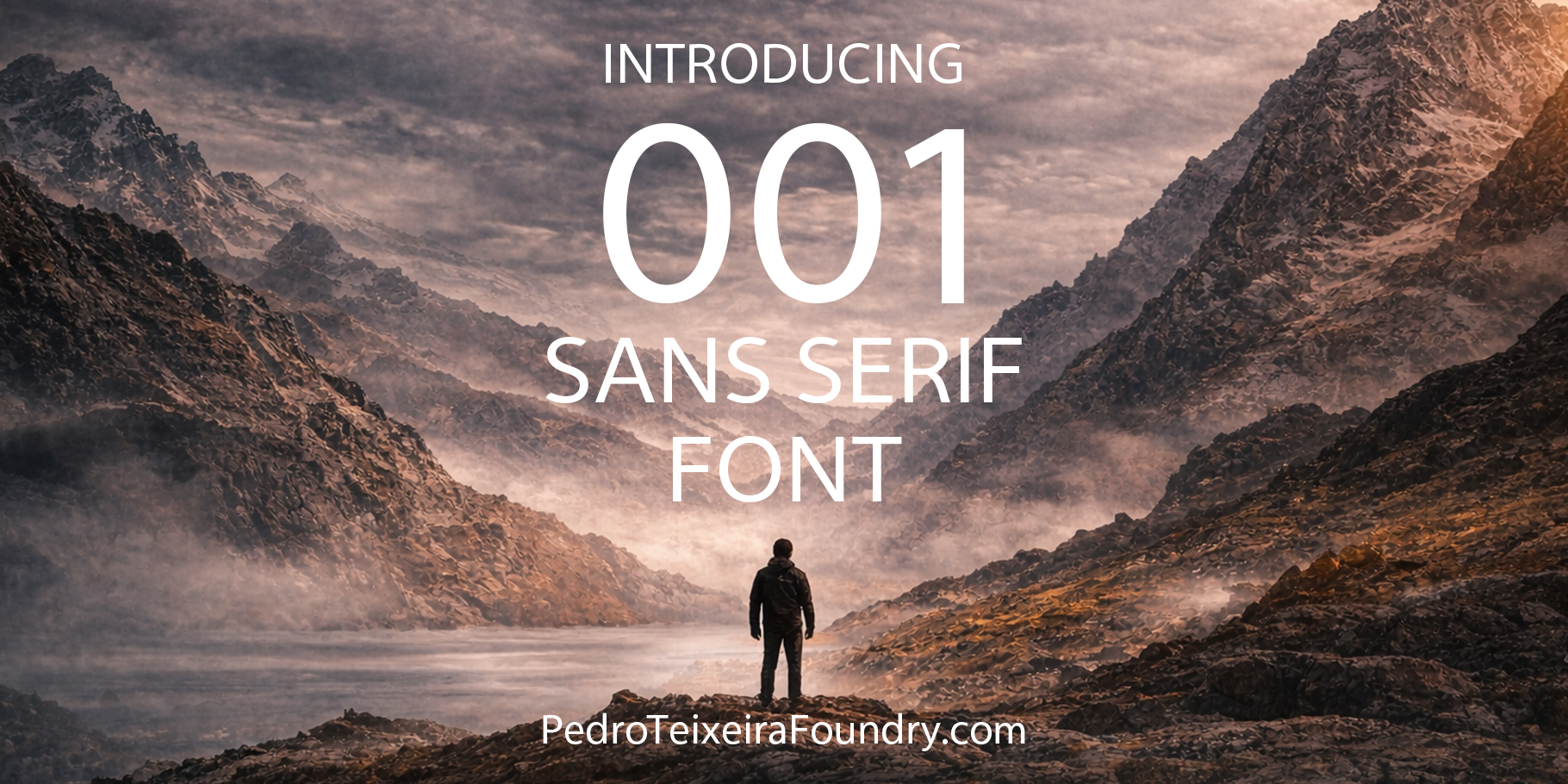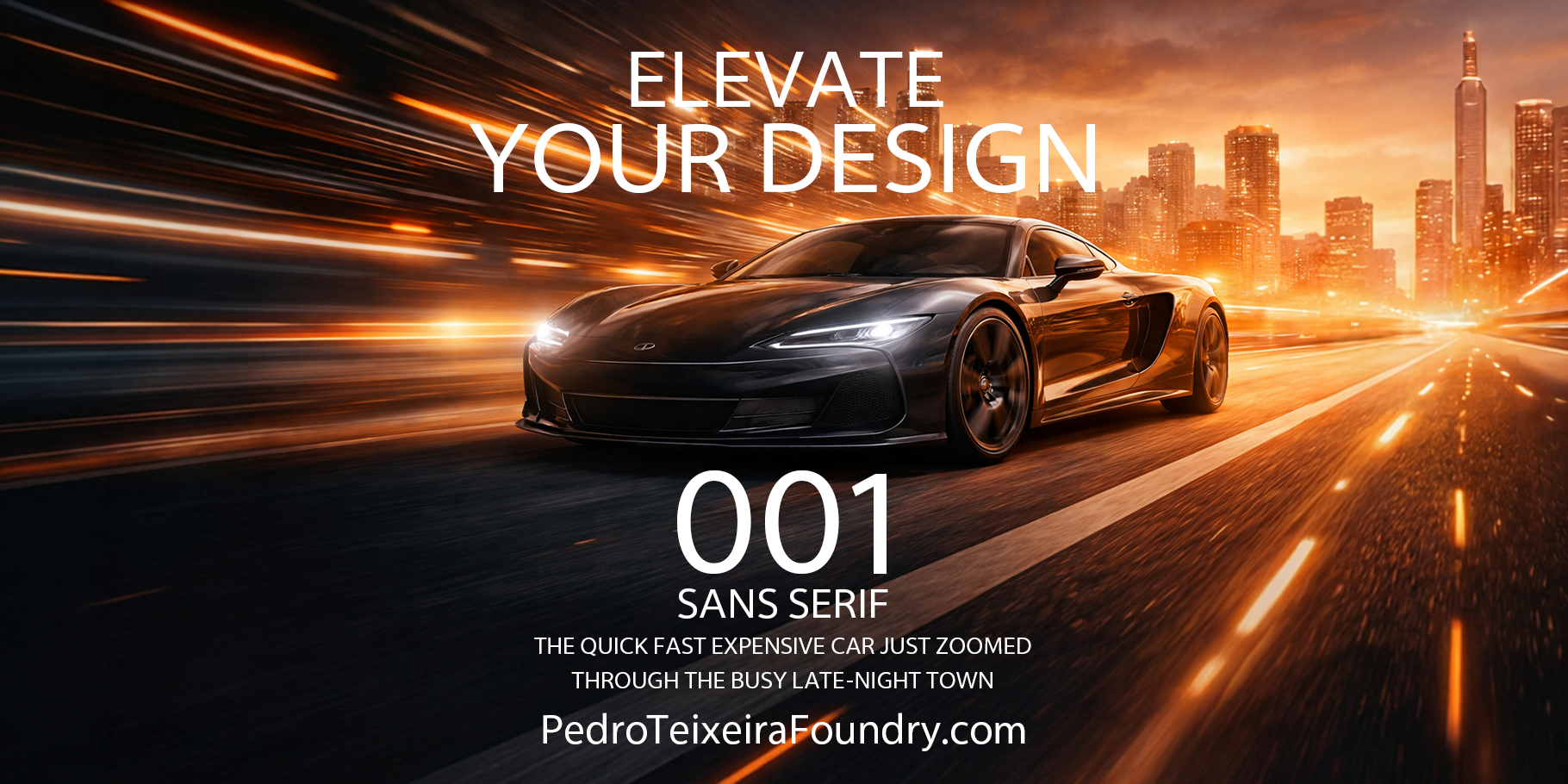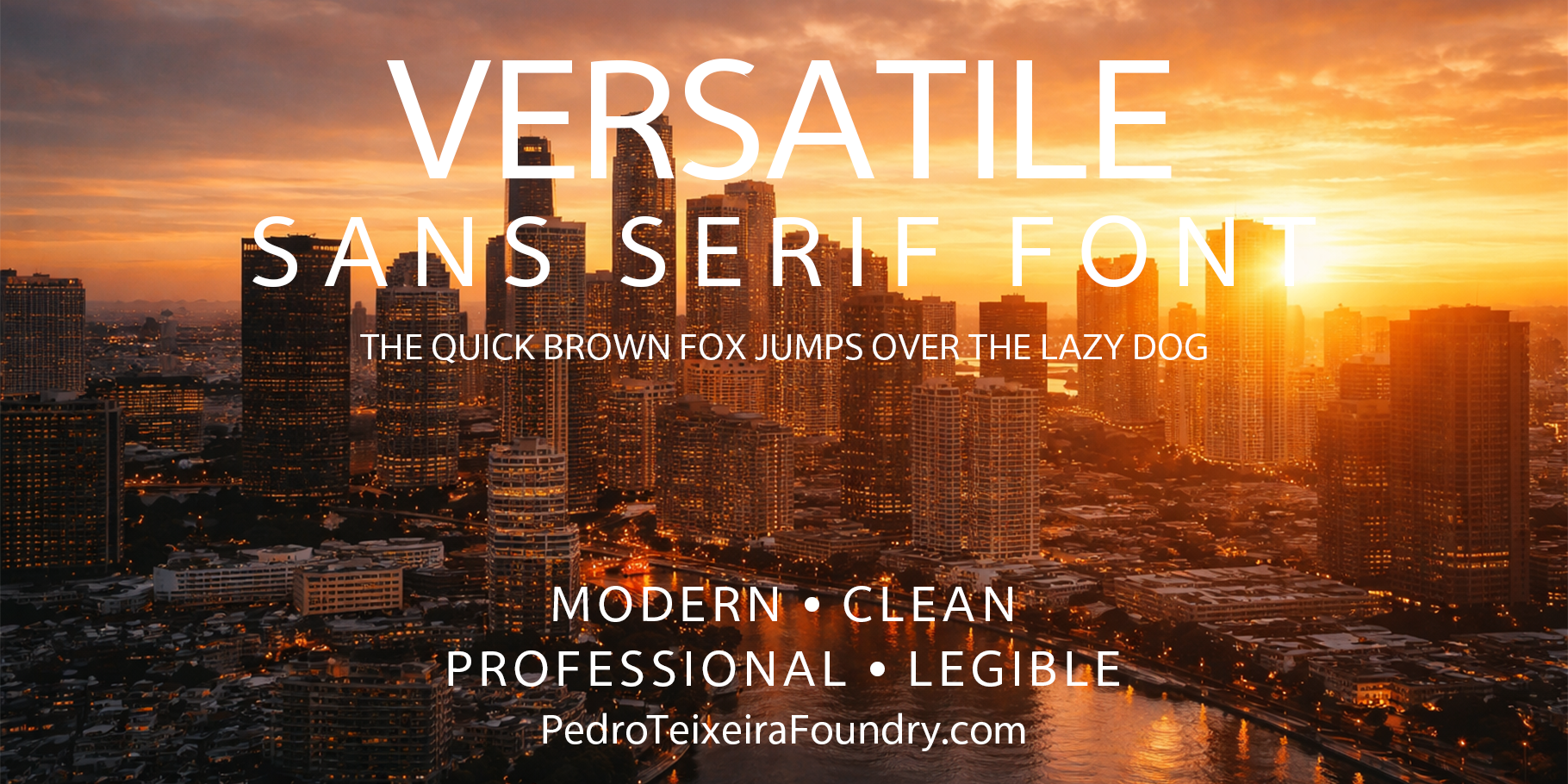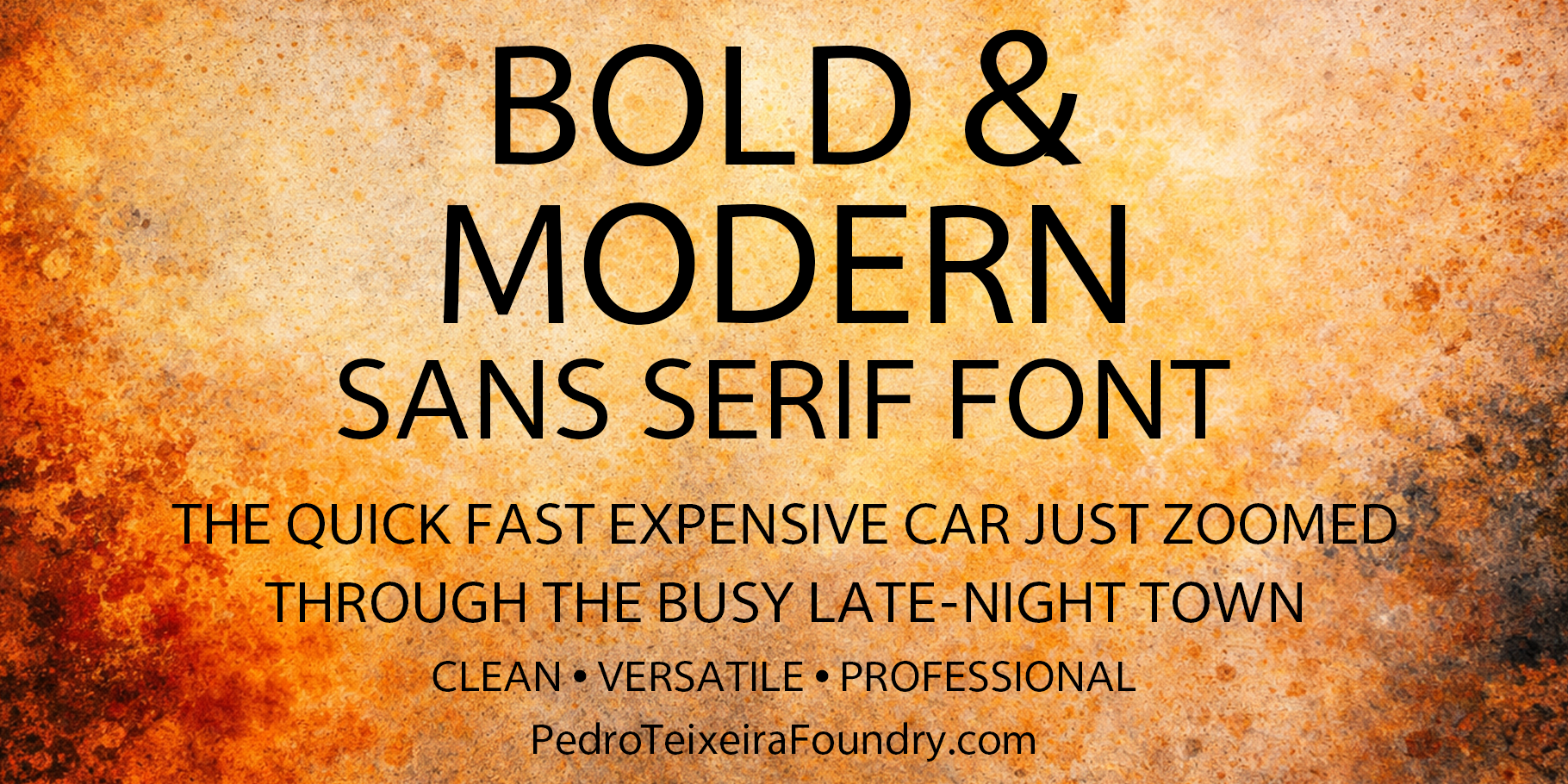
001 Sans Serif Font
001 Sans Serif Font is a modern professional typeface by Pedro Teixeira Foundry, designed for branding, editorial, web, packaging, and digital design. Clean, versatile, and contemporary, it works across both print and screen for designers, studios, agencies, and brands.
001 Sans Serif Font is a modern sans serif typeface created by Pedro Teixeira Foundry for designers, brands, studios, and creative teams who need clarity, versatility, and personality in one professional font. Developed for contemporary visual communication, it performs confidently across branding, editorial systems, websites, packaging, presentations, and digital products.
This professional sans serif font is designed to support strong typography in real-world projects. Its clean structure, balanced proportions, and controlled rhythm make it suitable for both expressive and functional use. Whether you are designing a visual identity, creating a modern website, building a campaign system, or refining editorial layouts, 001 Sans Serif Font offers a reliable typographic foundation with a contemporary voice.
Why Choose 001 Sans Serif Font
This typeface was designed for professional use across print and screen. It combines a modern sans serif appearance with practical usability, making it a valuable choice for branding designers, art directors, agencies, publishers, and digital teams. The typeface is intended to feel clear and contemporary while remaining flexible enough for a wide range of creative and commercial applications.
• Modern sans serif font for professional design work
• Suitable for branding, editorial, web, and packaging
• Designed for strong readability and visual consistency
• Useful for both print and digital environments
• Created by Pedro Teixeira Foundry
Best Uses for 001 Sans Serif Font
This sans serif typeface works especially well in brand identity systems, editorial layouts, websites, packaging, presentations, campaigns, portfolios, and social content. It is a good fit for projects that require a clean, contemporary, and professional typographic tone. Designers looking for a modern sans serif font with flexibility across multiple touchpoints will find it effective for both corporate and creative contexts.
Ideal for:
• Brand identity and logo support typography
• Editorial design and publishing
• Website headings and interface typography
• Packaging and product communication
• Presentations, lookbooks, and campaign design
Designed by Pedro Teixeira Foundry